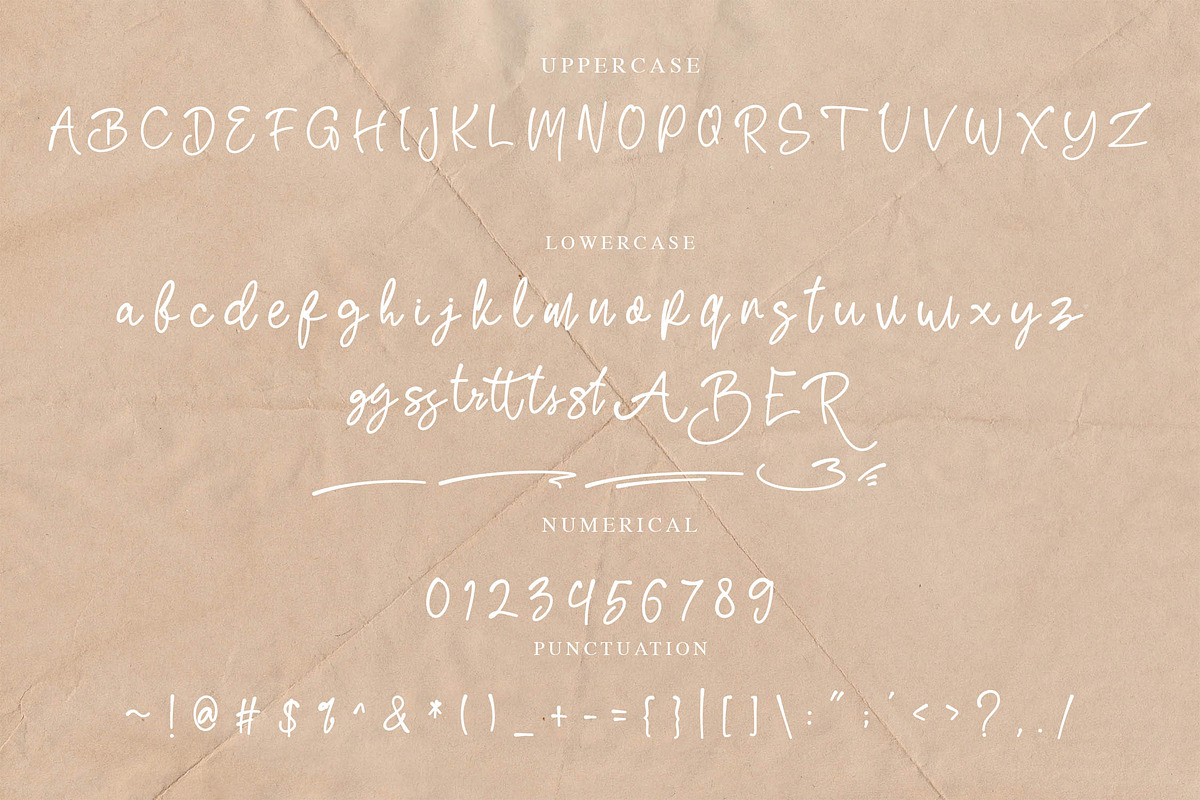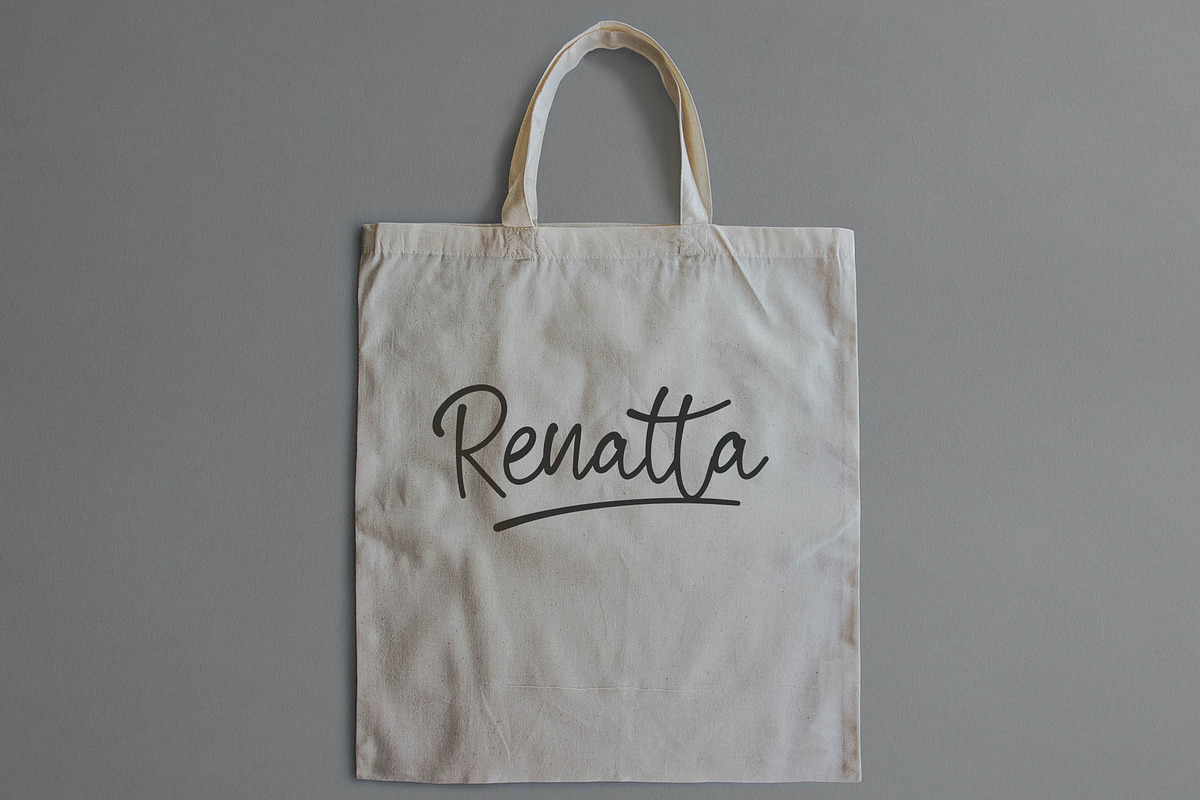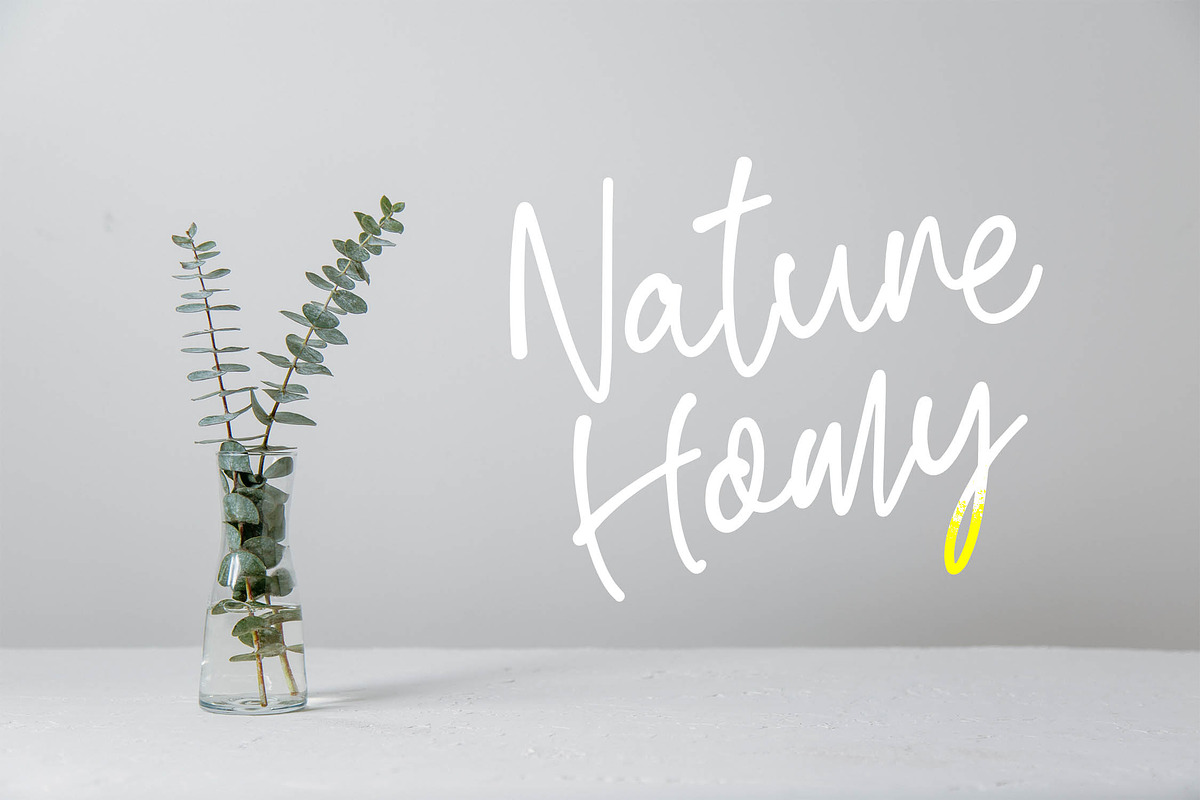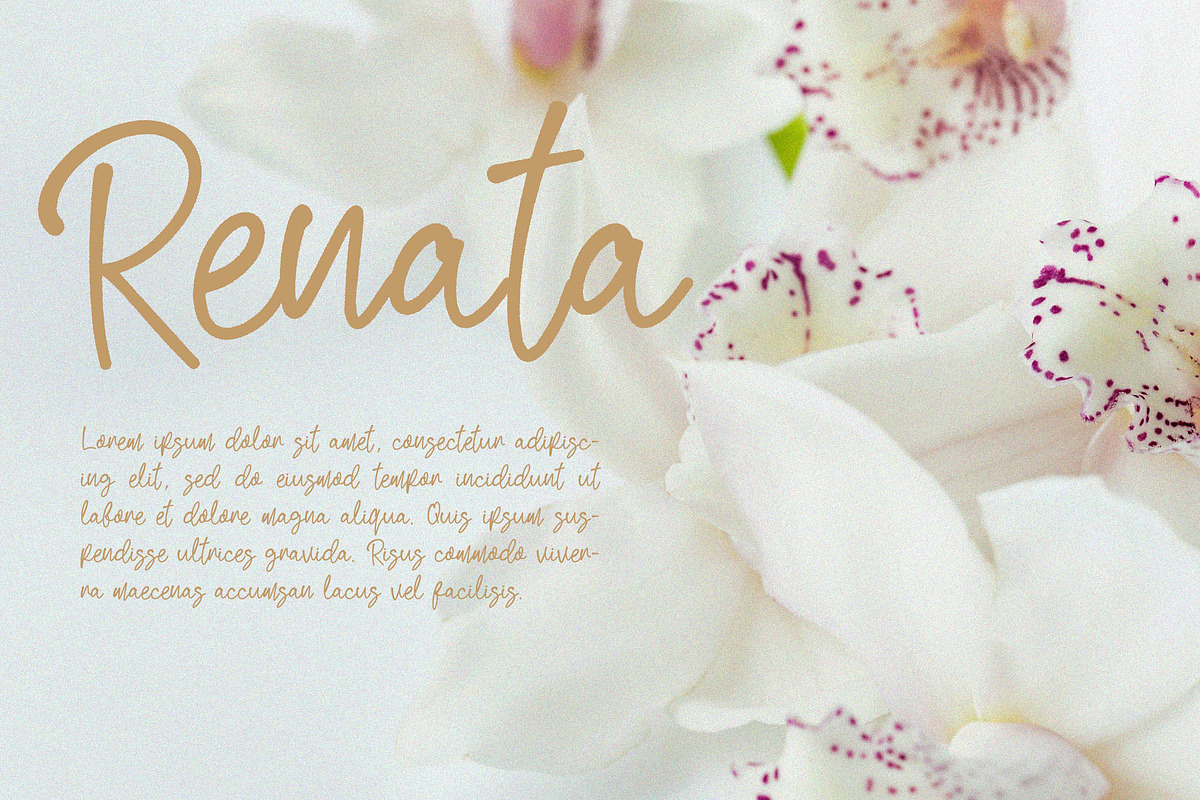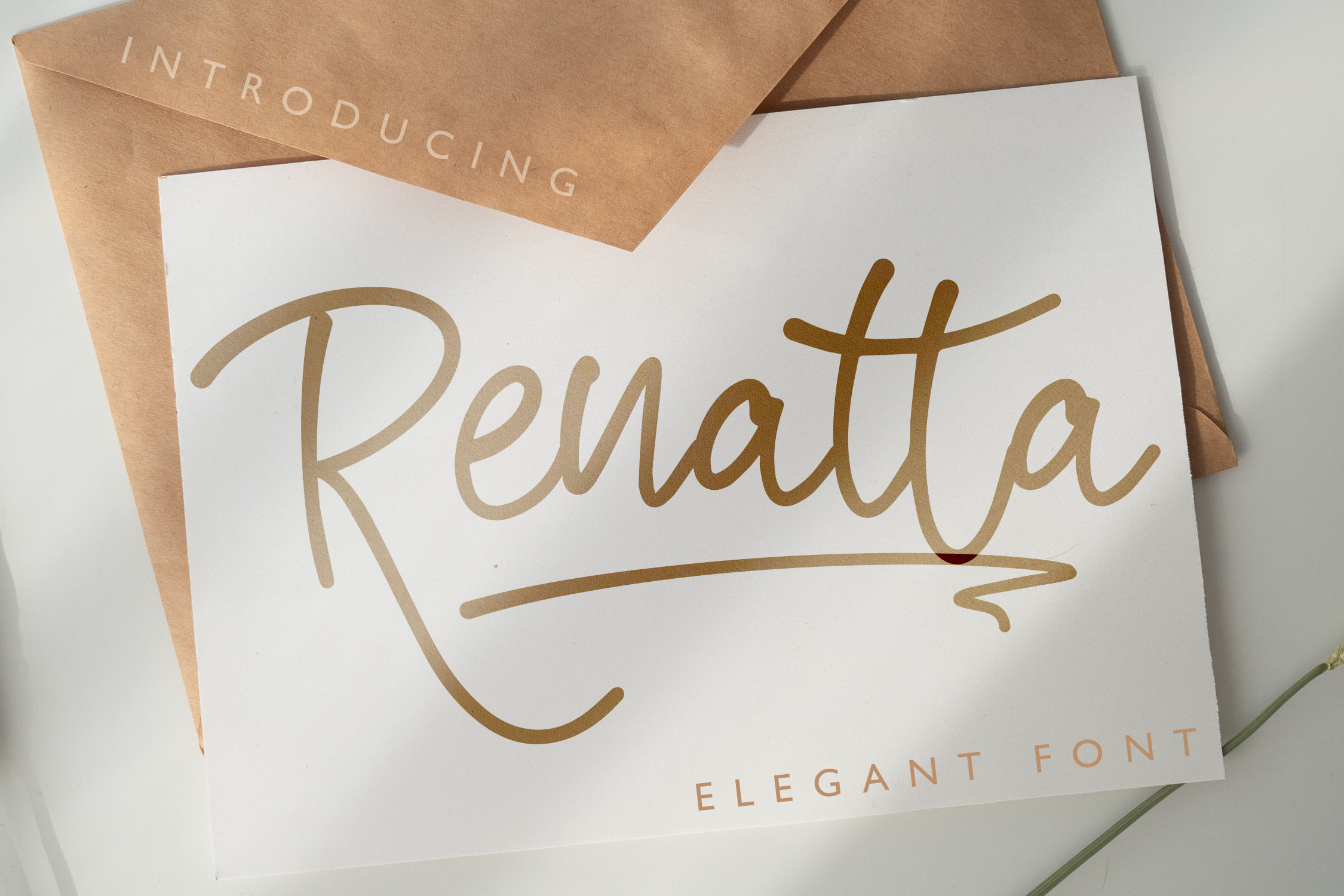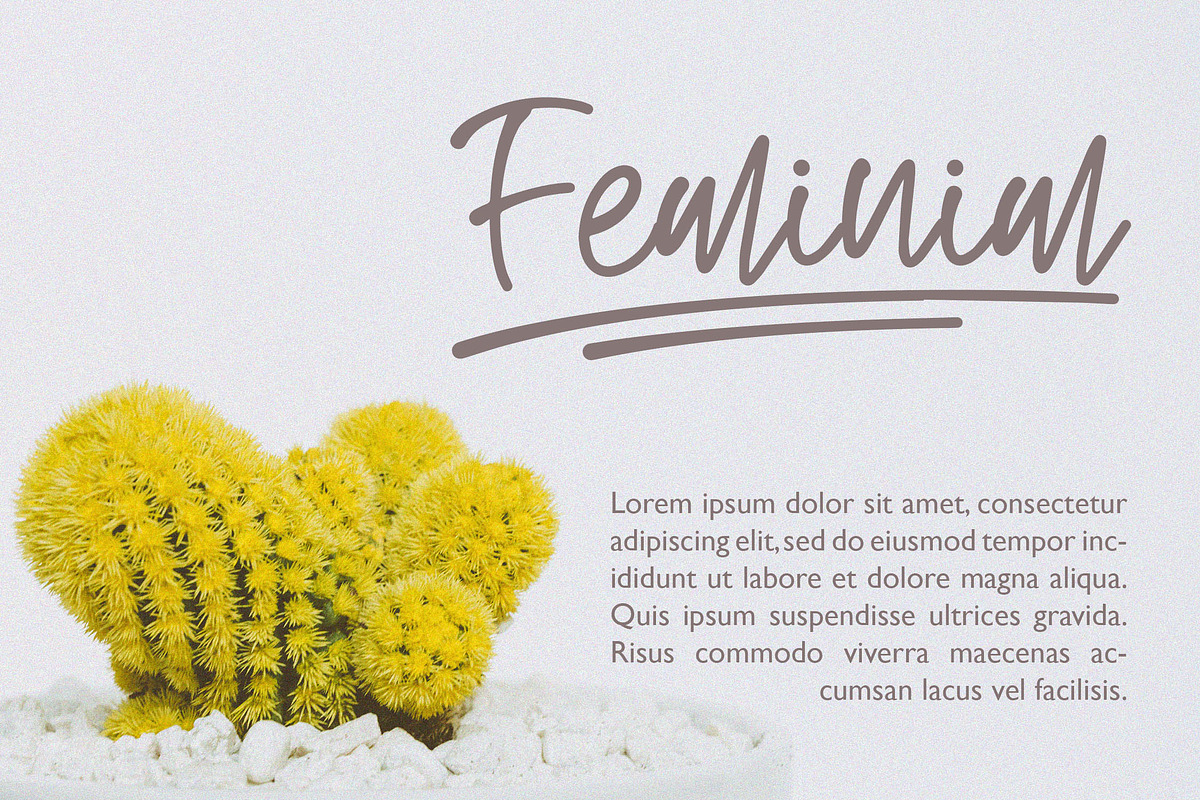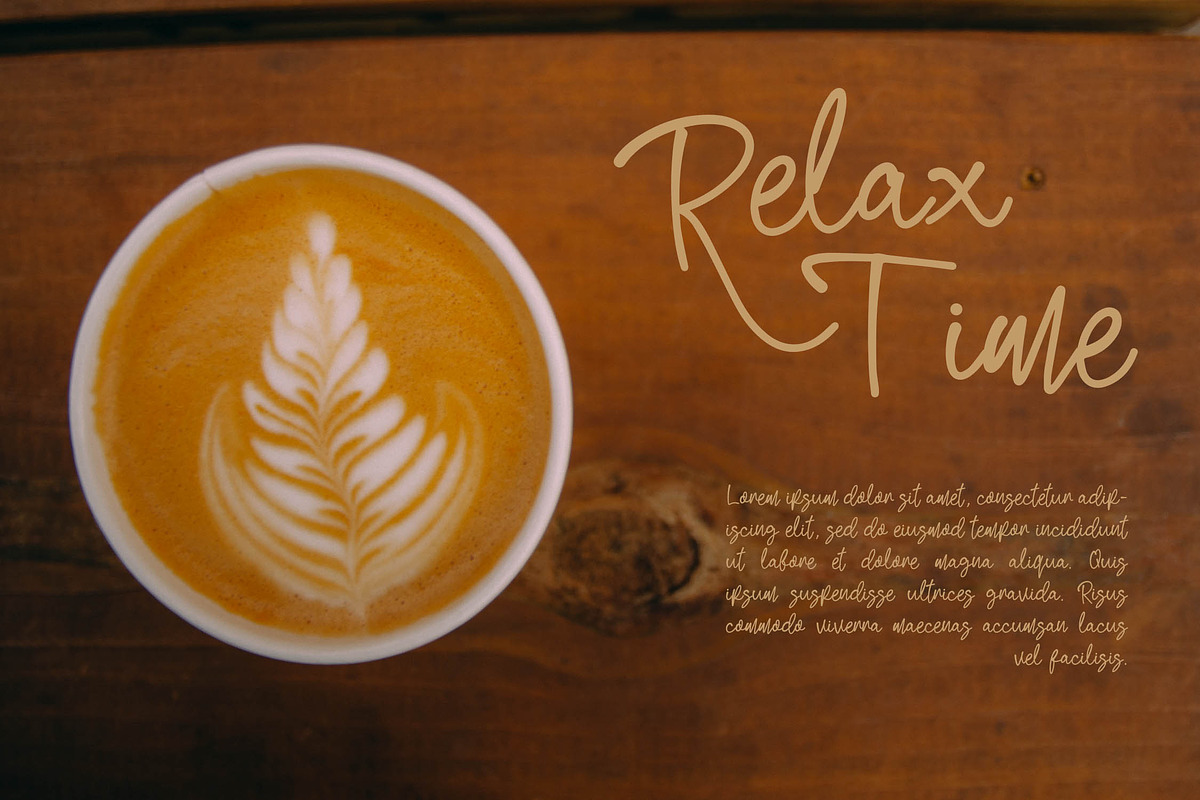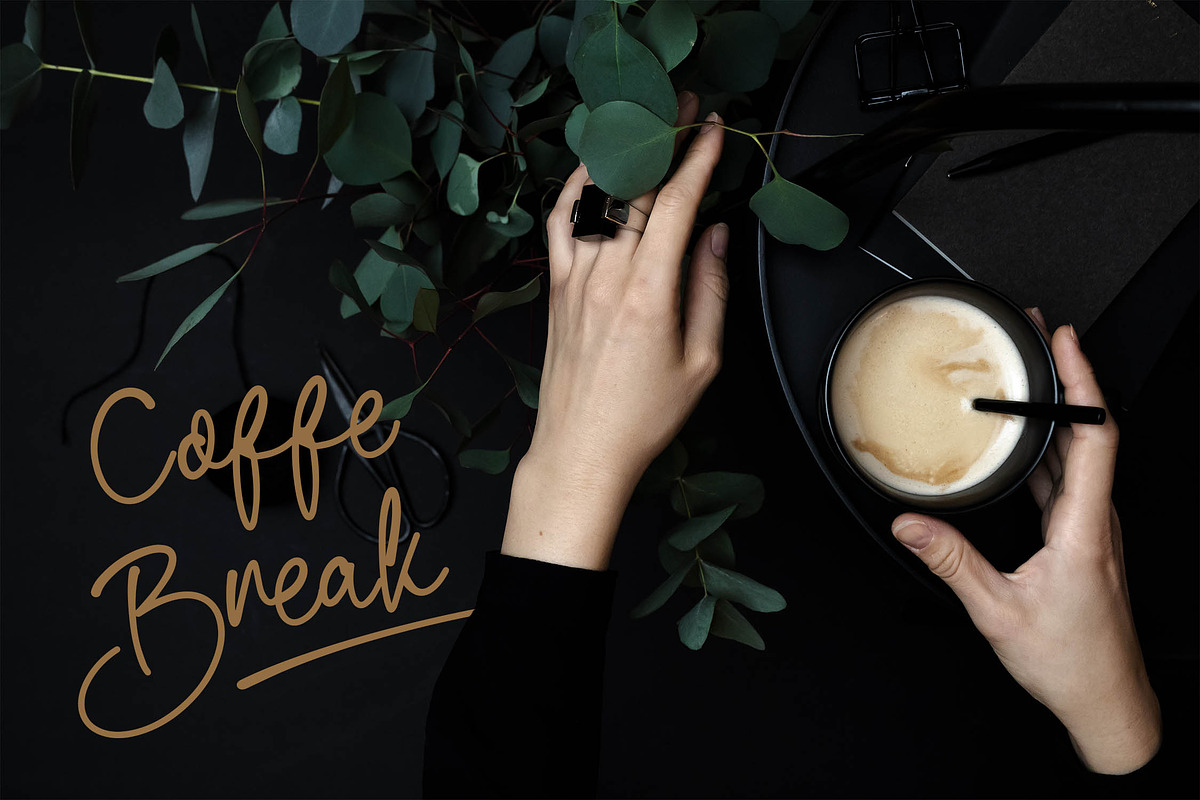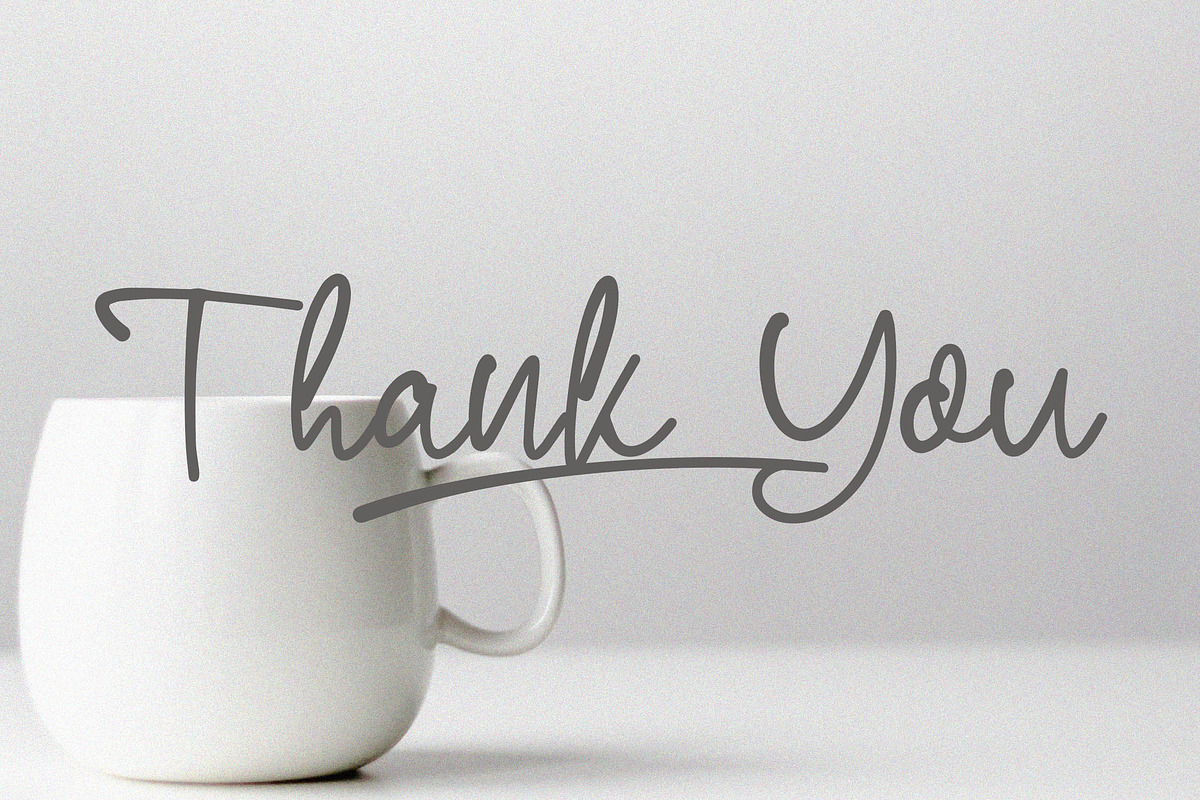
Renatta - Elegant Script Font
Renatta is an elegant script font with an elegant handwritten style. Is a font style that is made with scratches and curvature shapes font characters are very beautiful. Can be applied to support the graphic appearance of the product to be more attractive and unique. This font is suitable for making previews and covers, logo designs, shirt designs and other graphic needs.
- Stylistic Alternate